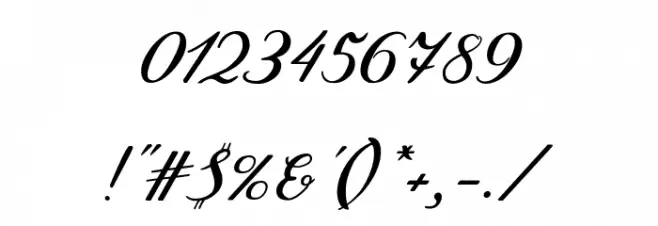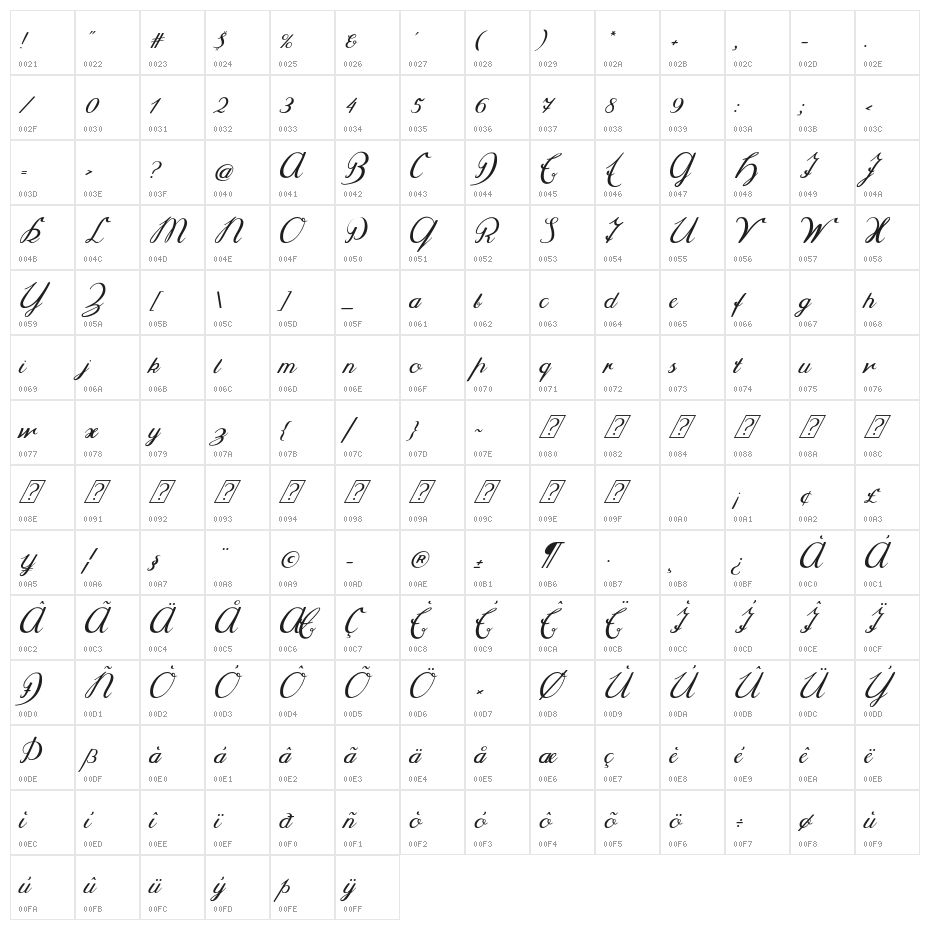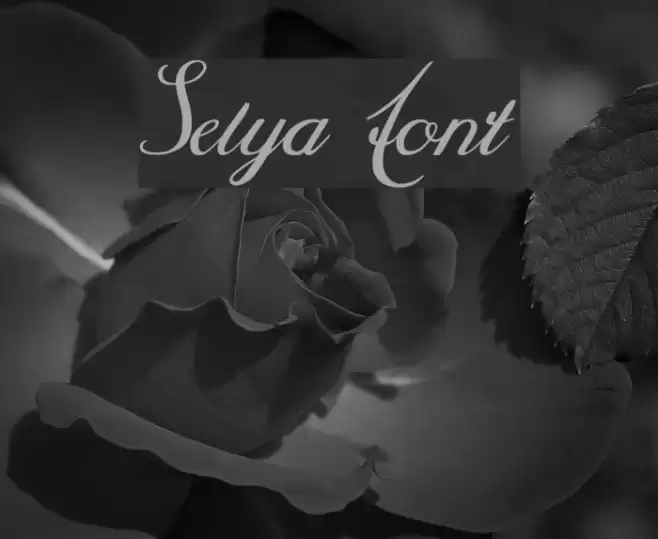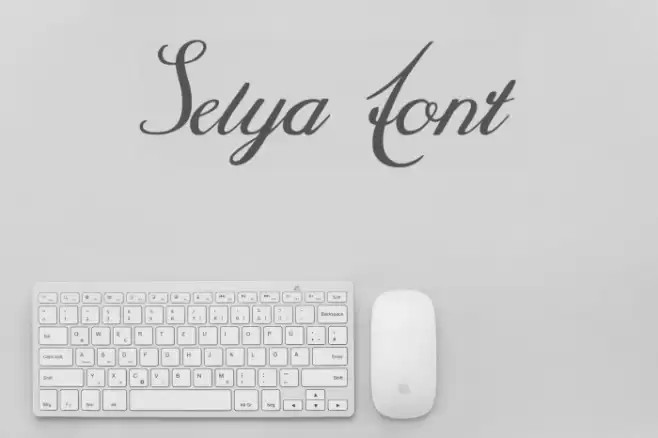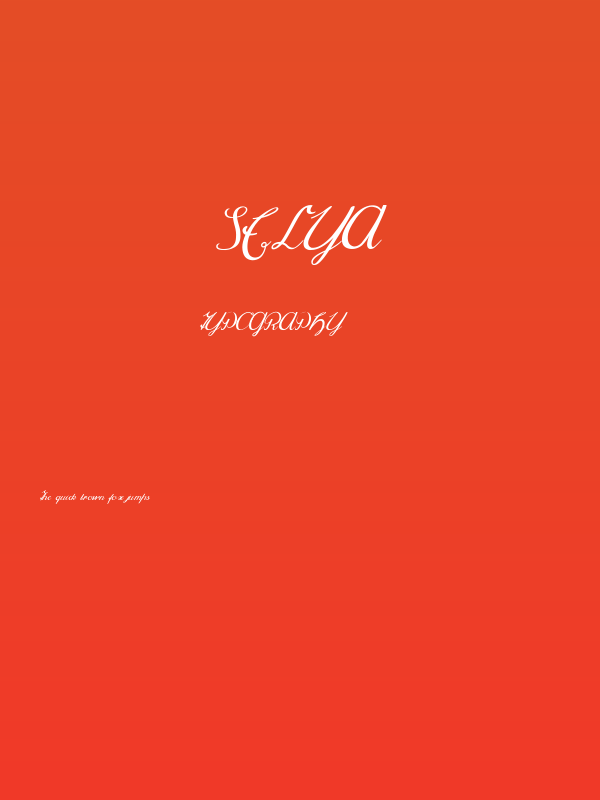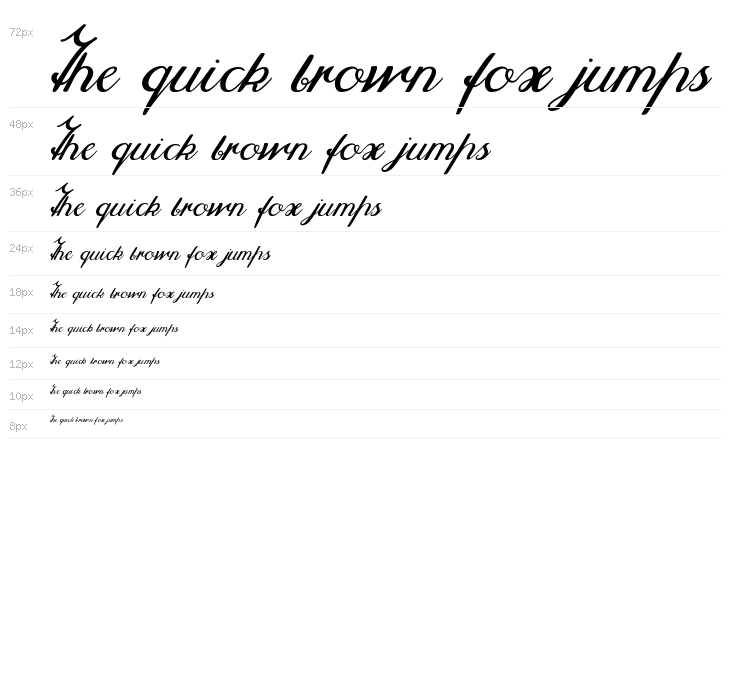
Selya Font
Selya Description
This font exudes elegance and sophistication with its flowing script style. The characters are intricately designed, featuring smooth curves and delicate flourishes that give it a handwritten appearance. The uppercase letters are particularly ornate, with extended strokes and loops that add a touch of drama. The lowercase letters maintain a consistent flow, making the text appear seamless and connected. Numbers and special characters are equally stylized, ensuring a cohesive look throughout. This font is perfect for projects that require a personal, elegant touch.